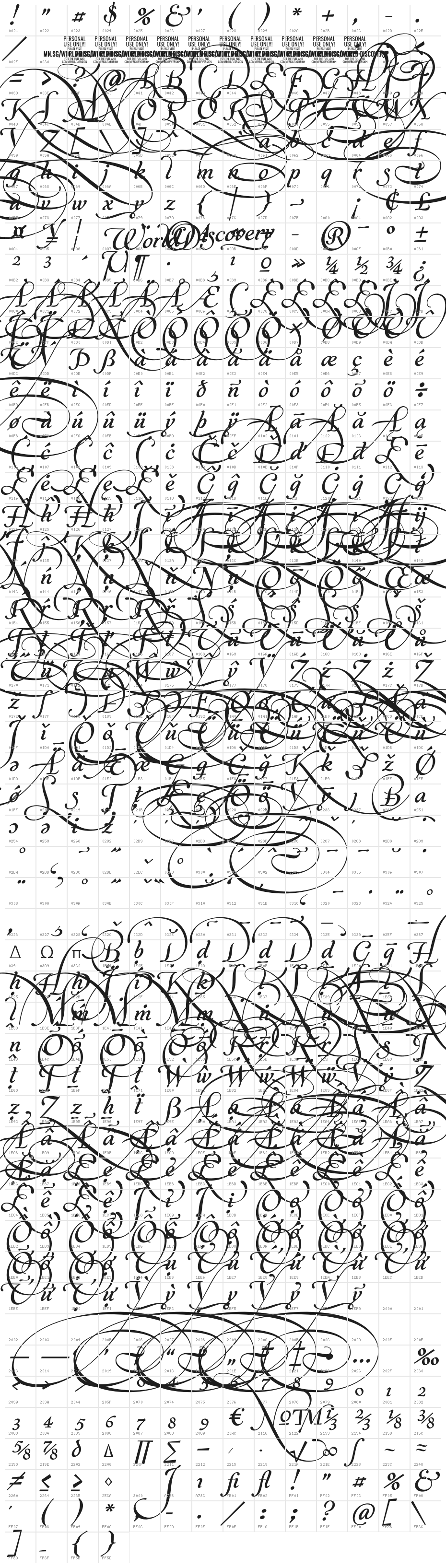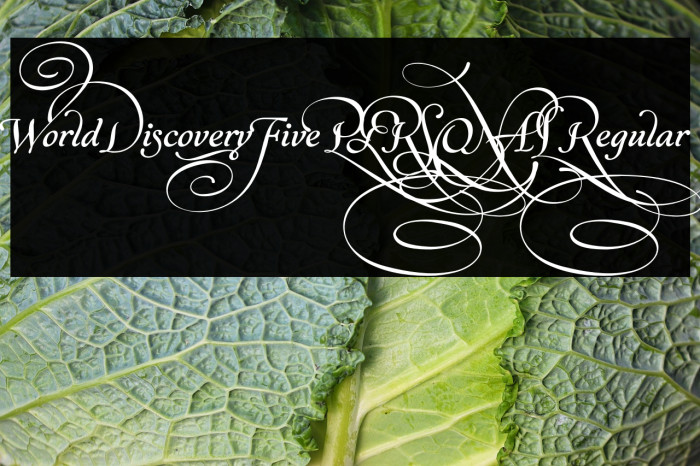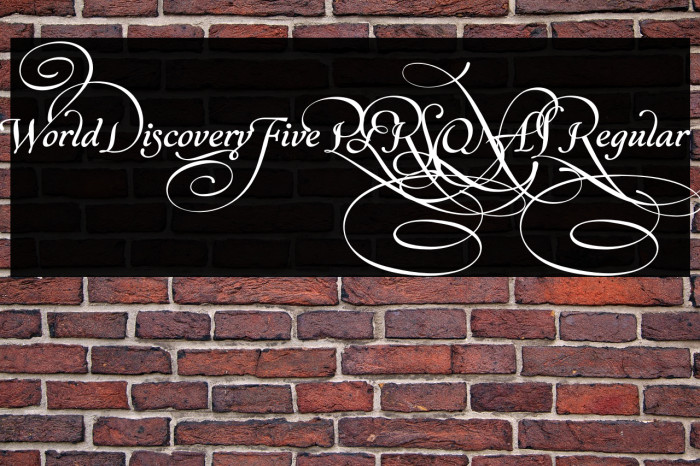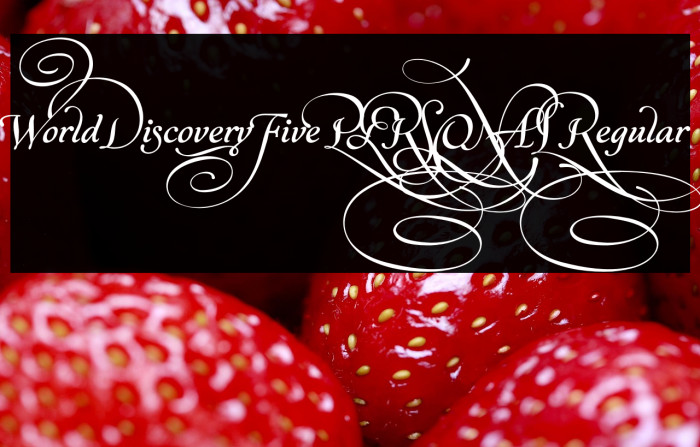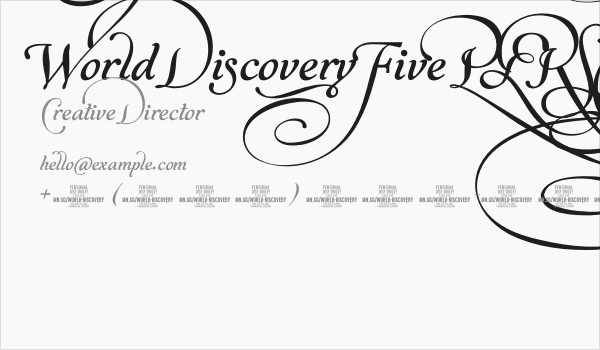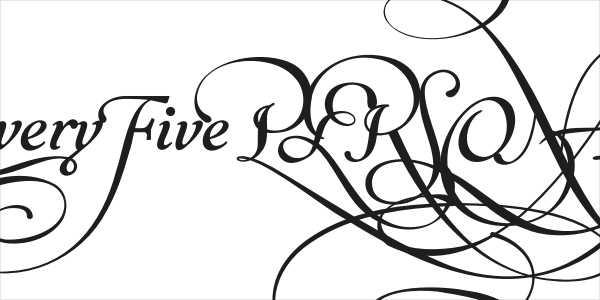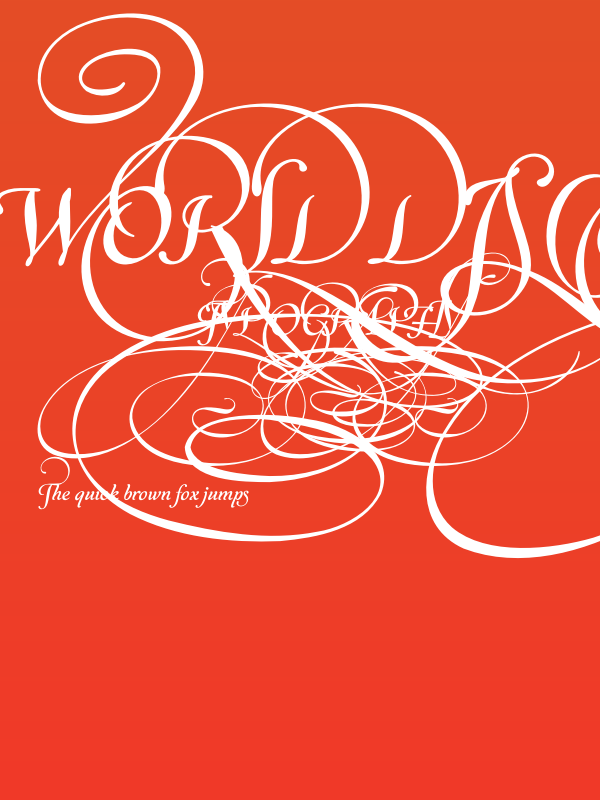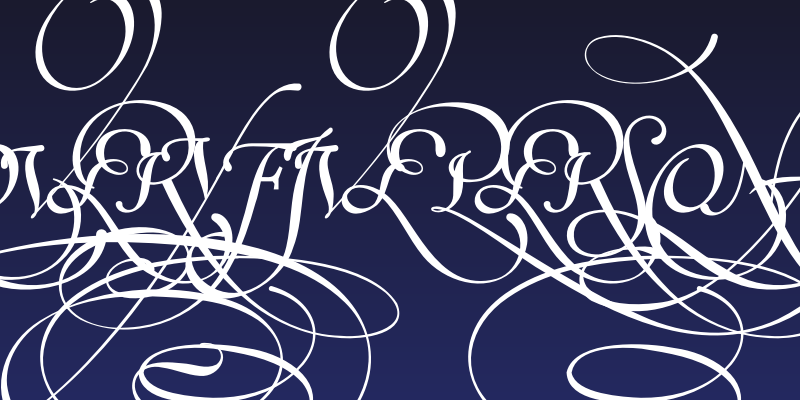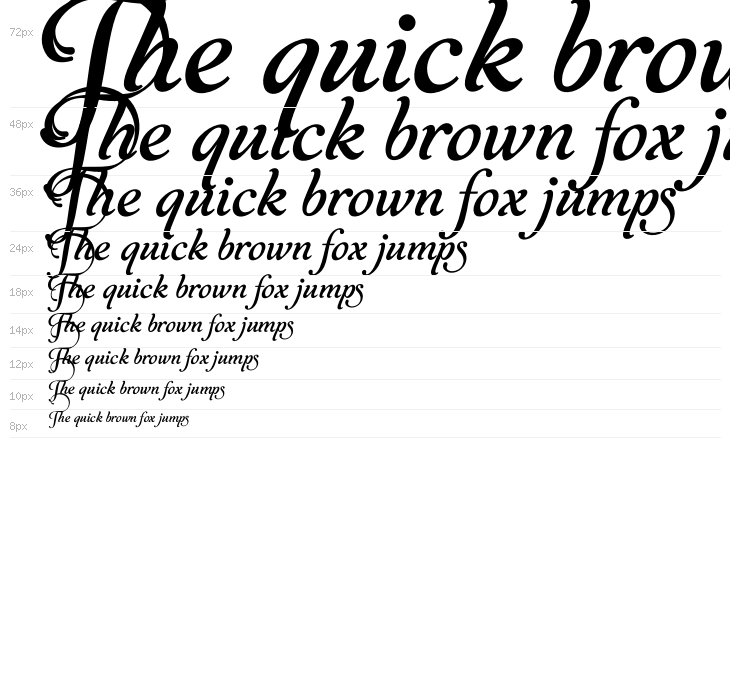
World Discovery Five PERSONAL Regular Font
World Discovery Five PERSONAL Regular Description
This font features an elegant and sophisticated script style, characterized by its flowing, interconnected letters and elaborate swashes. The uppercase letters are particularly ornate, with intricate loops and flourishes that give a sense of grandeur and formality. The lowercase letters maintain a consistent slant, enhancing the cursive appearance, while the numerals and special characters are designed to complement the overall aesthetic. The font's design is reminiscent of classic calligraphy, making it suitable for projects that require a touch of elegance and refinement.